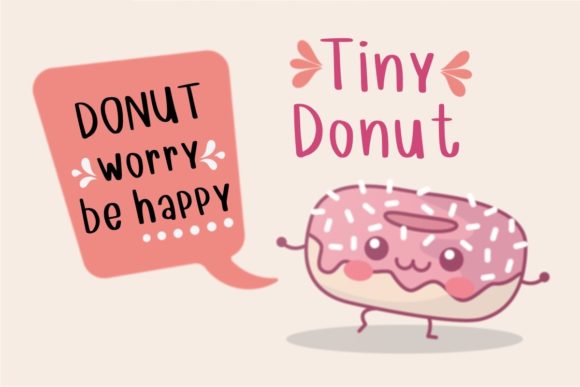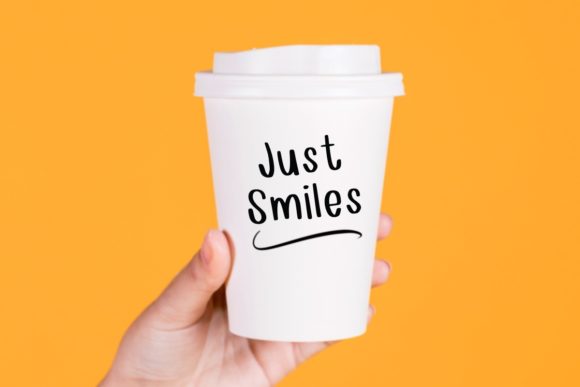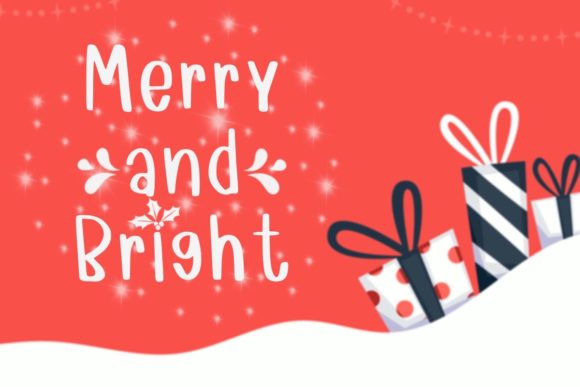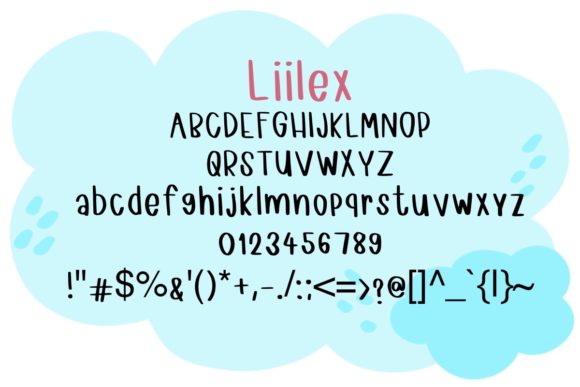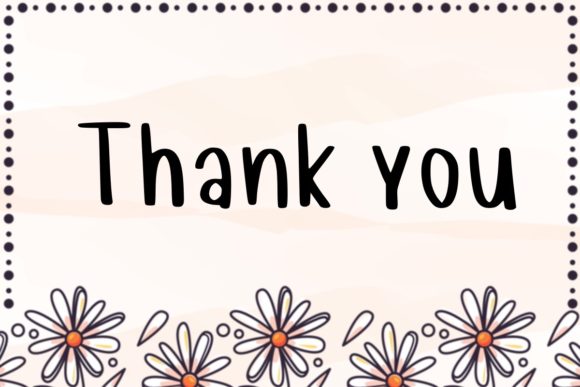
Introduction to Liilex Font
Remember that moment when you stumbled upon the perfect font for your design project? The one that made your creative vision come to life? For designers, finding the right font can be a game-changer. It’s what takes your project from good to great, and that’s exactly what we’re going to explore today – the Liilex Font.
This adorable handwritten font is a design resource that’s sure to make your creative project stand out. With its high quality, cute and casual style, Liilex Font is perfect for a wide range of applications, from gorgeous wedding invitations to beautiful stationery art. And the best part? It’s available for free download, making it an accessible choice for designers of all levels.
Key Features of Liilex Font
- High-quality, free download design resource ideal for creative projects
- Liilex Font is a versatile design resource suitable for various creative projects, including logos, graphics, and typography
Honest Review: Liilex Font
As a designer, I’m always on the lookout for high-quality design resources to elevate my creative projects. Recently, I came across the Liilex Font, and I’m excited to share my honest review with you.
What works well: ✨ The Liilex Font is incredibly versatile, with a wide range of styles and weights to suit any design project. The font is also highly legible, making it perfect for body text or headlines. Additionally, the font’s transparent background allows for seamless integration with any background image or color.
Overall, I’m impressed with the Liilex Font’s quality and design. It’s a great resource for designers working on personal or non-commercial projects. If you’re looking for a high-quality, free font for your creative project, the Liilex Font is definitely worth checking out.
- Highly versatile font with multiple styles and weights
- Legible and easy to read
How to Use Liilex Font
Tips for Getting the Most Out of Liilex Font
Use Liilex Font on a transparent background to give your design a modern look.
Experiment with different font sizes and styles to create visual interest.
Combine Liilex Font with other high-quality design resources for a cohesive look.
Liilex Font is perfect for creative projects, such as:
1. Branding and logos.
2. Infographics and data visualizations.
3. Social media graphics and posts.
4. Print materials, such as business cards and flyers.
Alternatives to Liilex Font
Montserrat is a high-quality sans-serif font designed for digital use. It’s perfect for creative projects that require a modern and clean design. Montserrat is available for free download and offers a transparent background, making it ideal for graphic designers.
Montserrat compares to Liilex Font in its sleek and modern design. However, Montserrat has a more condensed style, making it suitable for headlines and titles. Liilex Font, on the other hand, has a more elegant and refined look, making it ideal for body text.
Lato is a beautiful sans-serif font that’s perfect for designers looking for a high-quality design resource. It’s available for free download and offers a transparent background, making it ideal for graphic designers. Lato is a great choice for creative projects that require a clean and modern design.
Lato compares to Liilex Font in its elegant and refined design. However, Lato has a more rounded style, making it suitable for body text and paragraphs. Liilex Font, on the other hand, has a more modern and sleek look, making it ideal for headlines and titles.